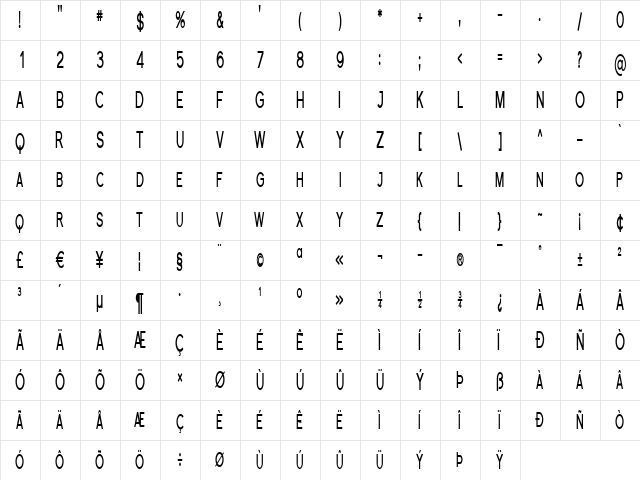
Florencesans SC Comp Bold
Design Context for Florencesans SC Comp Typeface
Florencesans SC Comp takes a measured approach to typography — its balanced proportions and neutral character make it a reliable workhorse for both digital and print work. The heavy weight commands attention and anchors typographic hierarchies.